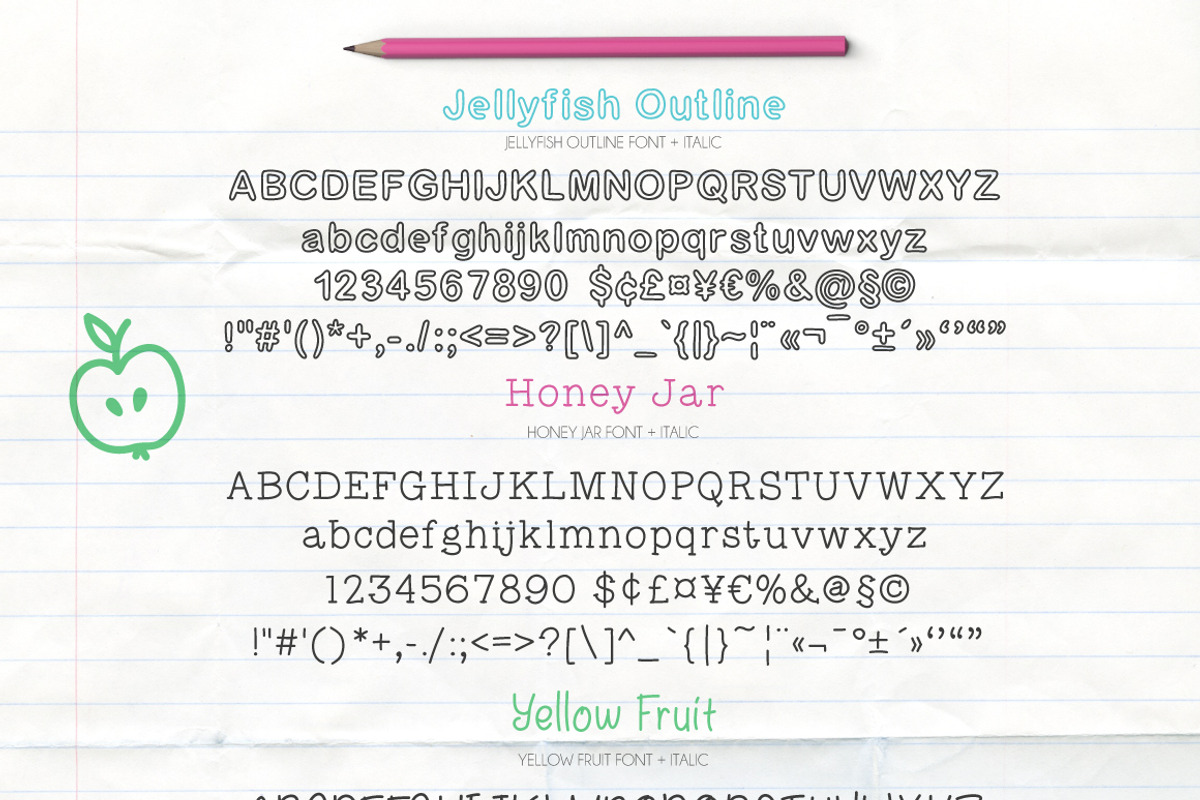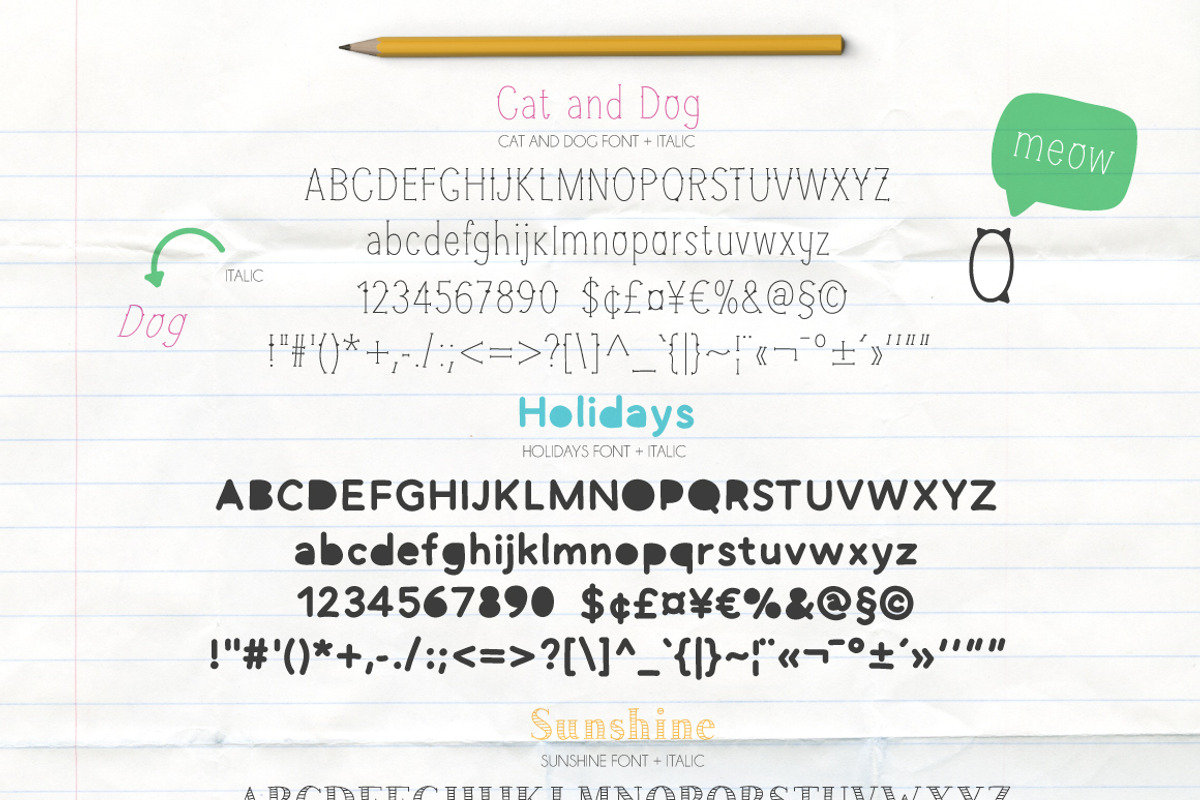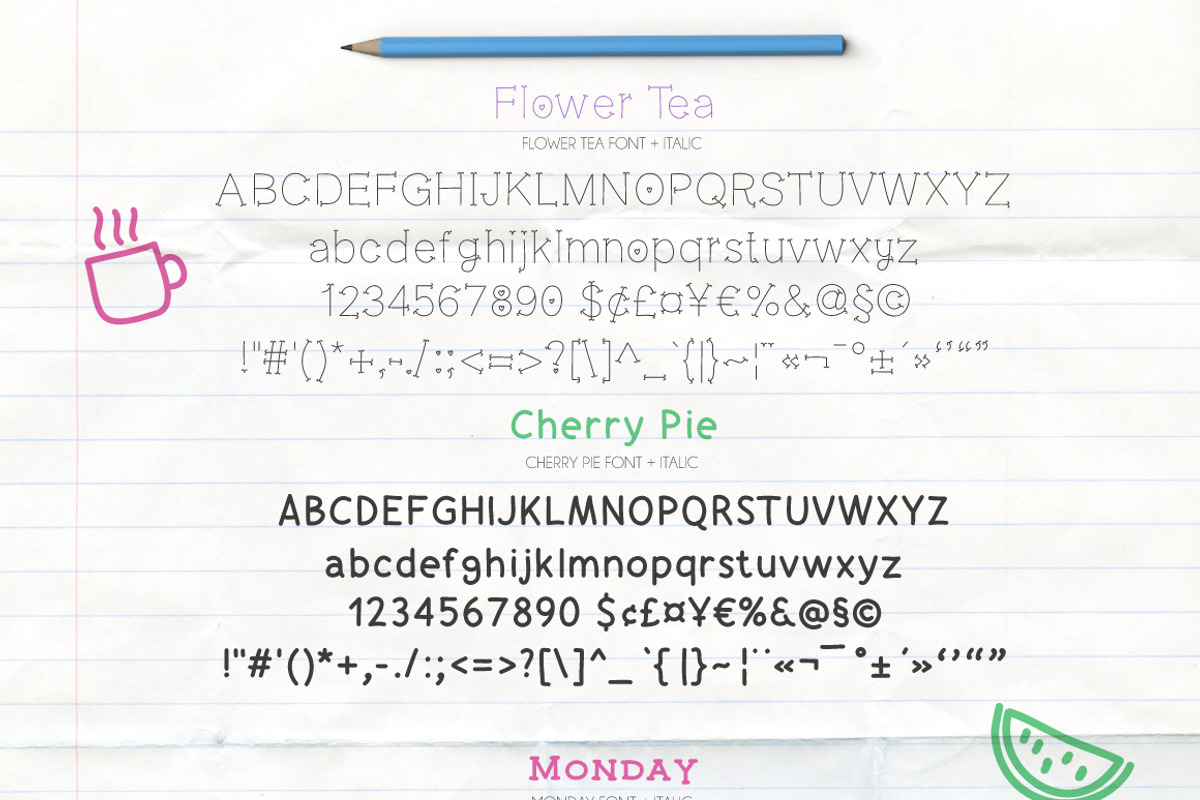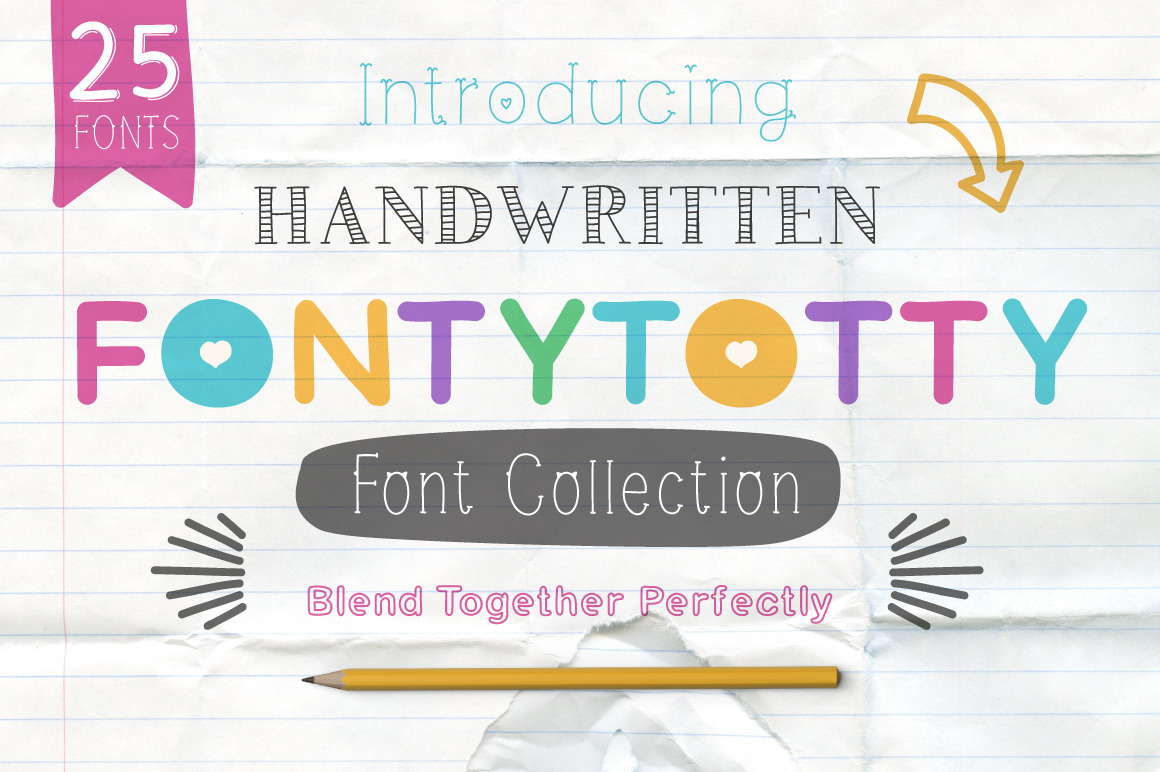
Fontytotty 25 Font Collection
Presenting the Fontytotty Font Collection - It's 25 hand drawn fonts. These handwritten fonts blend together perfectly and perfectly fit for any of your project.
- Cat and Dog (Display + Italic);
- Quinny (Display + Italic);
- Sunshine (Display + Italic);
- Cherry Pie (Display + Italic);
- Honey Jar (Display + Italic);
- Holidays (Display + Italic);
- Jellyfish (Display + Italic);
- Yellow Fruit (Display + Italic);
- Flower Tea (Display + Italic);
- Monday (Display + Italic);
- Koala (Display + Italic);
- Jellyfish Outline (Display + Italic);
- Elements Font.